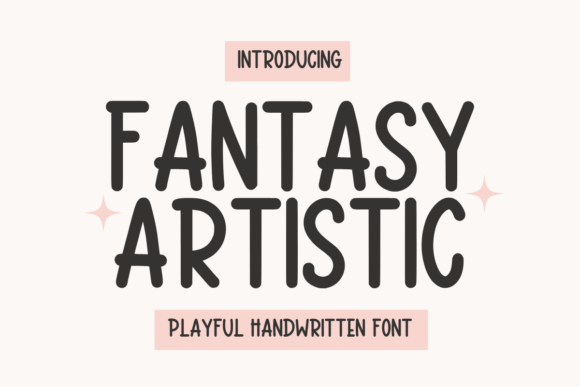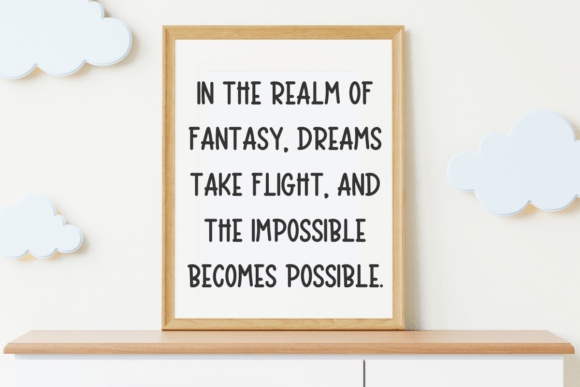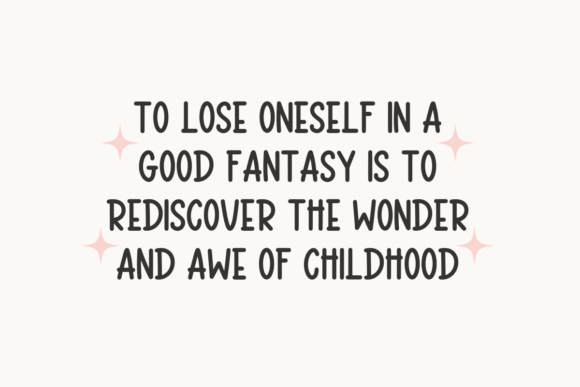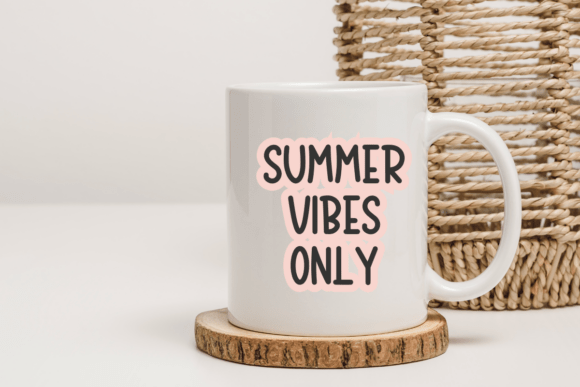
Fantasy Artistic Font
About the Fantasy Artistic Font
Introducing the Fantasy Artistic Font, a beautifully crafted typeface designed to elevate your creative projects. Fantasy Artistic is a playful handwritten font that’s perfect for crafts, planners, KDP, stickers, greeting cards, and more. With its cute and friendly style, it works great for Cricut, sublimation, and creative DIY projects. Ideal for crafters, designers, and makers!
Its friendly, whimsical style makes it particularly well-suited for projects requiring a touch of handcrafted charm, such as children’s book illustrations, logos for small businesses with a playful brand identity, or packaging for artisan goods. However, its informal nature makes it unsuitable for large blocks of body text or applications demanding high readability, like websites or user interfaces.
Consider pairing Fantasy Artistic with a clean sans-serif like Open Sans for a balanced contrast, or a more geometric sans-serif like Montserrat for a modern feel. A simple serif like Lora could also provide a sophisticated counterpoint, grounding the playful handwritten style.
The font exudes a light-hearted, approachable personality, ideal for brands targeting a young or family-oriented audience. Avoid using it where a more formal or sophisticated aesthetic is required.
Fantasy Artistic Font Usage Examples
Fantasy Artistic Font Example